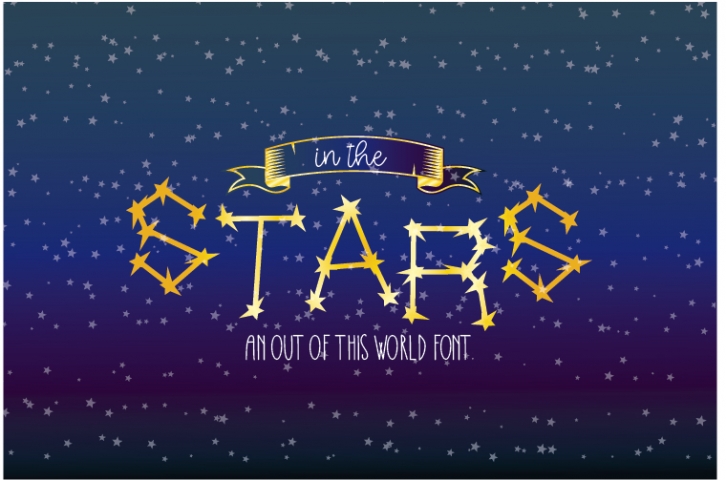
In The Stars FONT Download
In The Stars is a gorgeous font that was realeased on January 29, 2020. The font can be used in many style contexts and design environments. Perfect for invitations, magazines, websites, logos, and more! It was designed by Nicole Forbes Designs and the file size is 10.40 MB. Thanks for checking out this font!